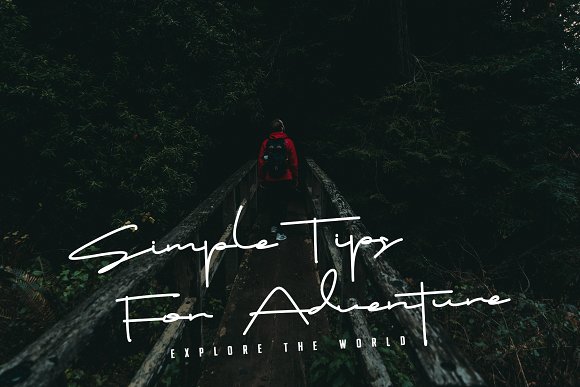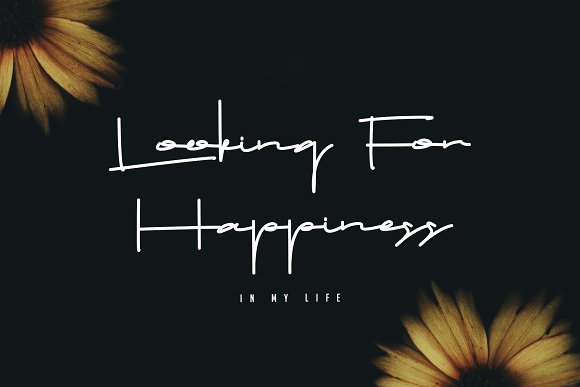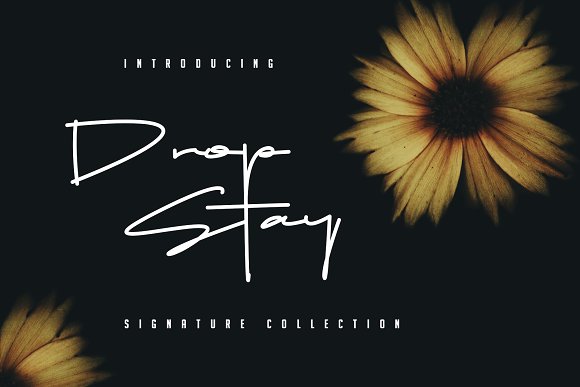
Drop Stay Handwritten Font
Drop Stay is typographic lettering that will be perfect for any design project such as logos & branding, invitation, stationery, wedding designs, social media posts, advertisements, product packaging, product designs, label, photography, watermark, special events or anything that need that authentic handwriting taste.